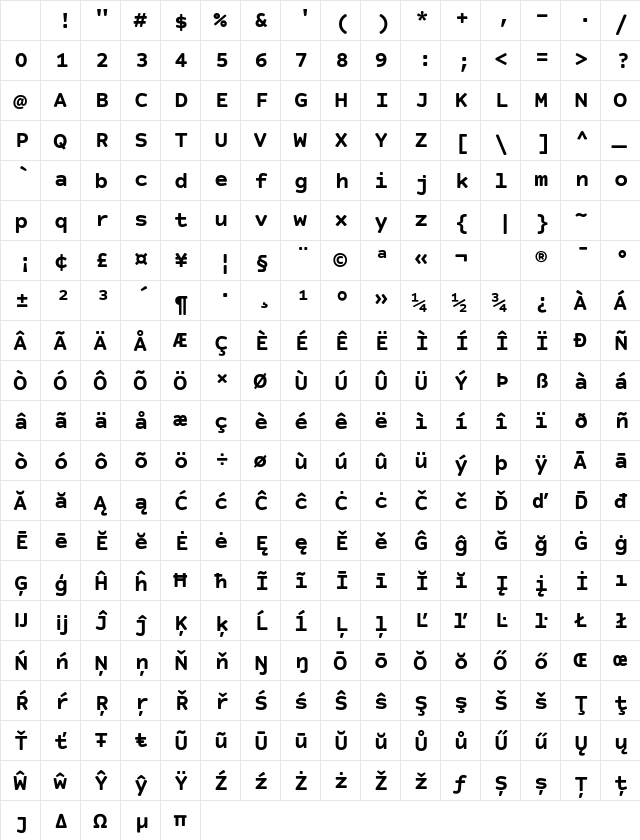
Complete Courier Prime Sans Bold glyph index. Displaying only characters natively supported by Courier Prime Sans Bold font.
Courier Prime Sans uses fixed-width spacing throughout, giving it the structured, systematic character associated with coding environments and technical documentation. Its bold stroke weight gives it real presence on the page.
Pro Tip: Use Courier Prime Sans with slightly increased line-height for extended reading - fixed-width spacing can feel dense in longer passages without extra breathing room.